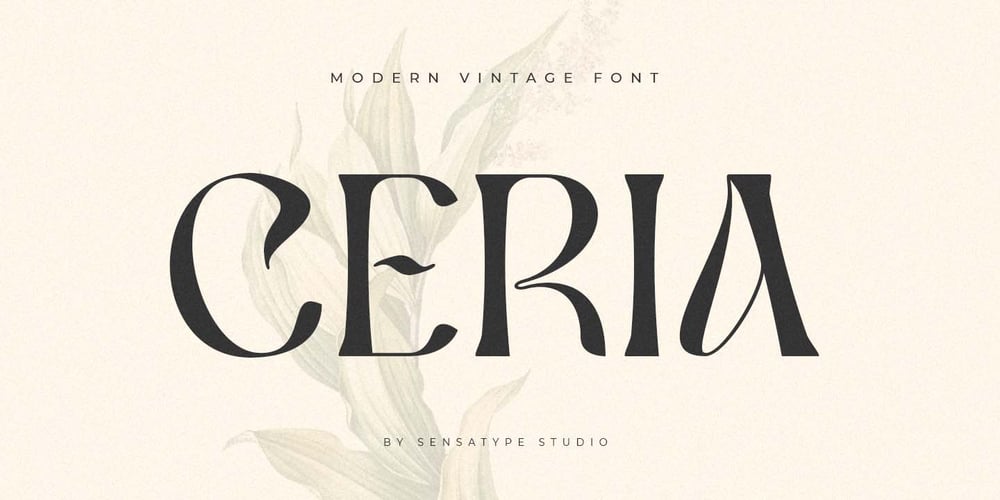
SS Ceria Font Family was designed by Zamroni Hamzah and published by Sensatype Studio. SS Ceria contains 1 styles and family package options. Ceria is a Modern Vintage Display FontA New Vintage font that we created special for Unique branding needs, with extra ligature in unique style that ready to add value of your brand. It’s so nice to leverage designer or product owner that need solutions to make their design look more unique and vintage.Ceria Modern Vintage Display font ready with: Lowercase and Uppercase characters Numbers and Punctuations 3 files format already Preview as a inspirations that you can do with Ceria font Available for PC and Mac Wish you enjoy our font.